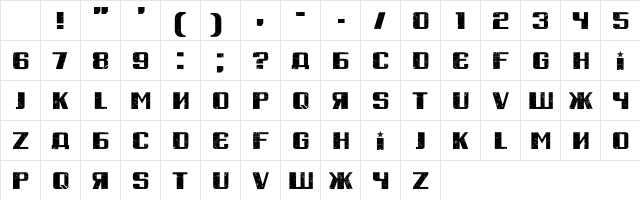
Complete Russian Spring Grunged Regular glyph index. Displaying only characters natively supported by Russian Spring Grunged Regular font.
Russian Spring Grunged embraces imperfection - its rough, textured character adds raw authenticity to designs that want to feel lived-in and unconventional.